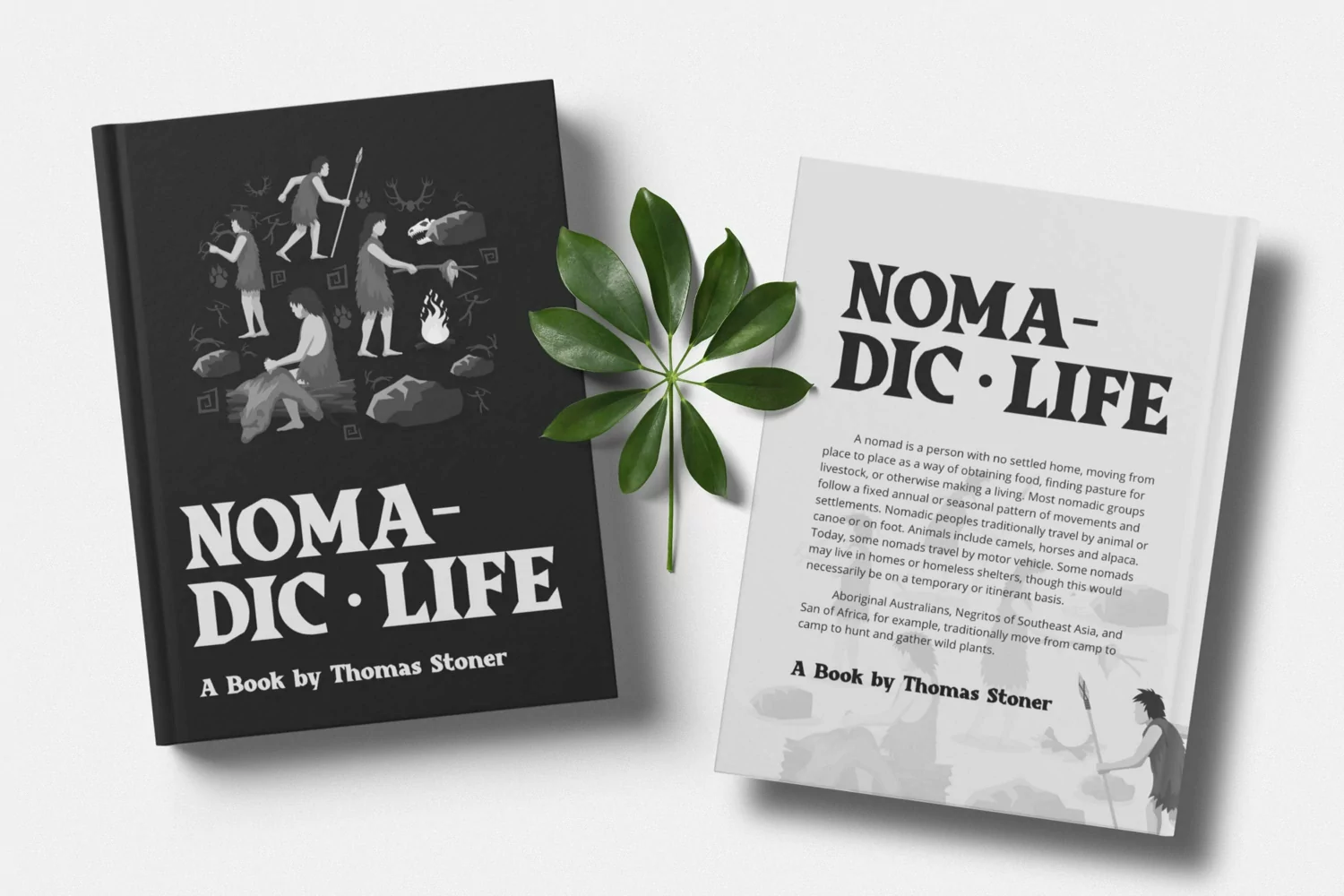
Web Font suitable for logotype, brand, packaging, quotes, music poster, t-shirt, cover book and more custom design. The features uppercase, lowercase, numeral, punctuation & symbol, multilingual support.
CasteloRegular